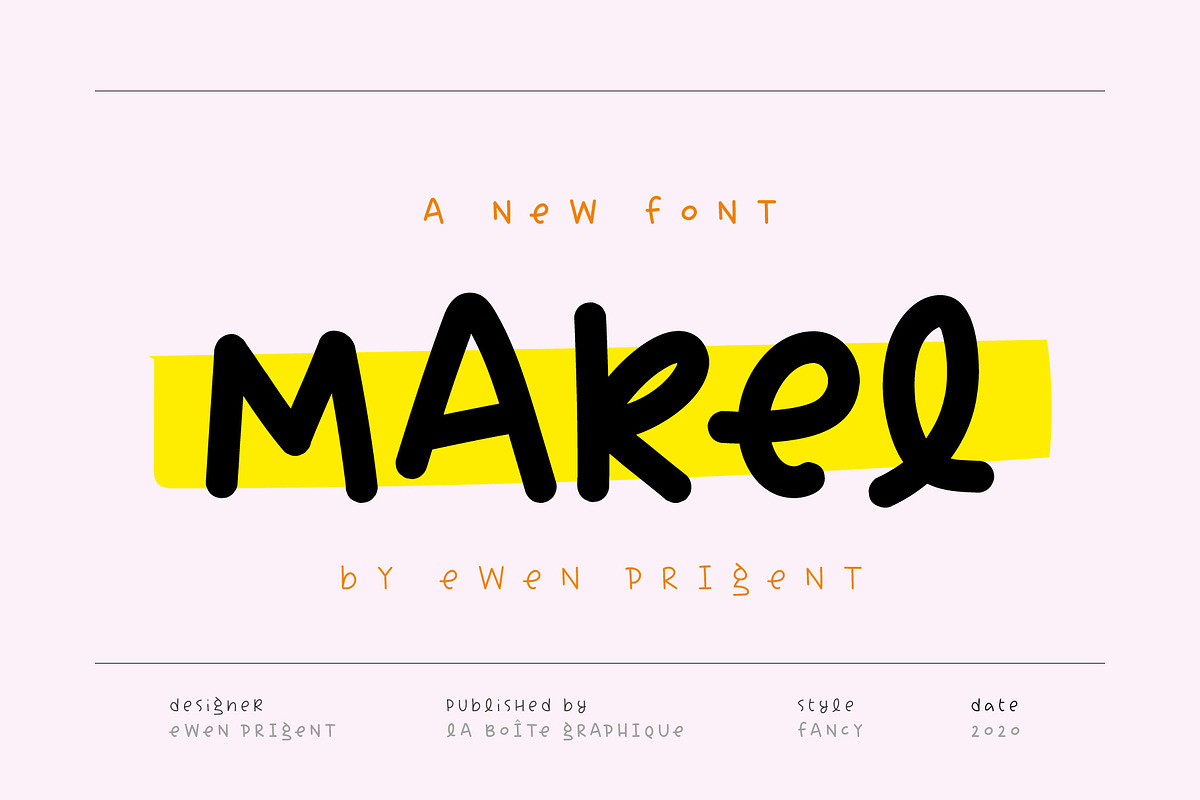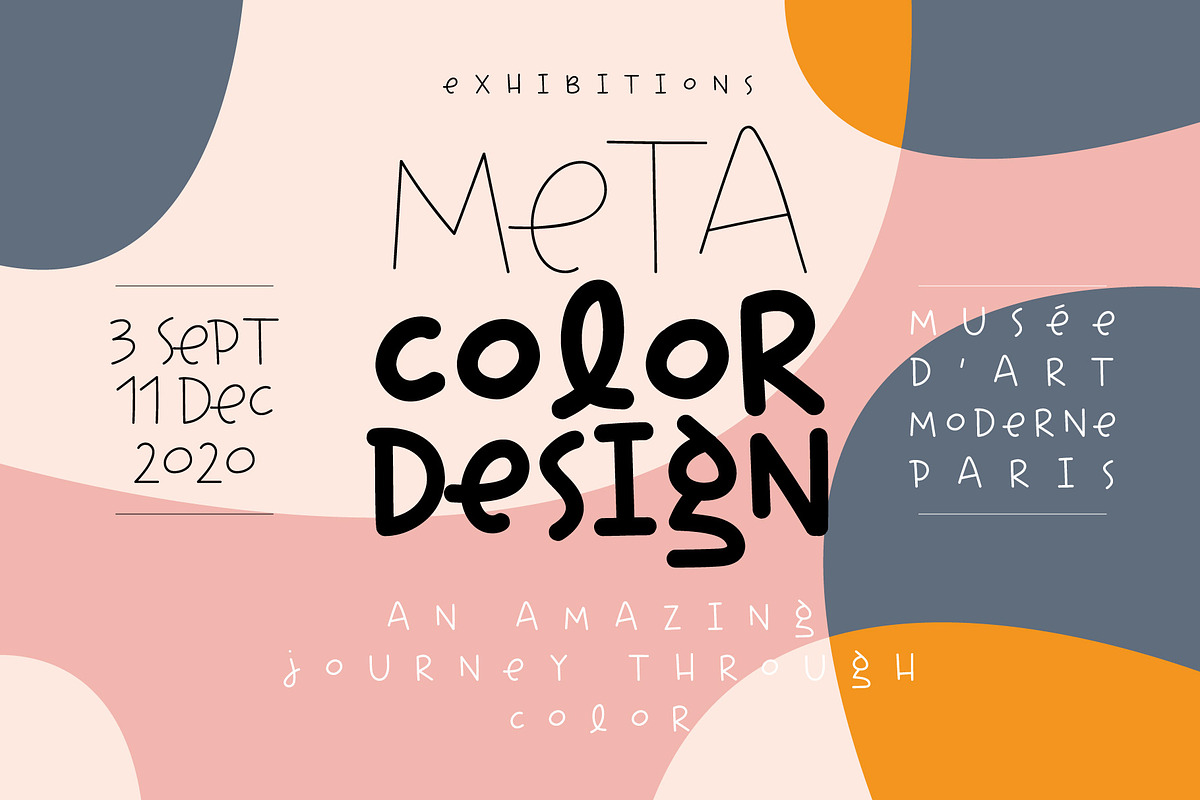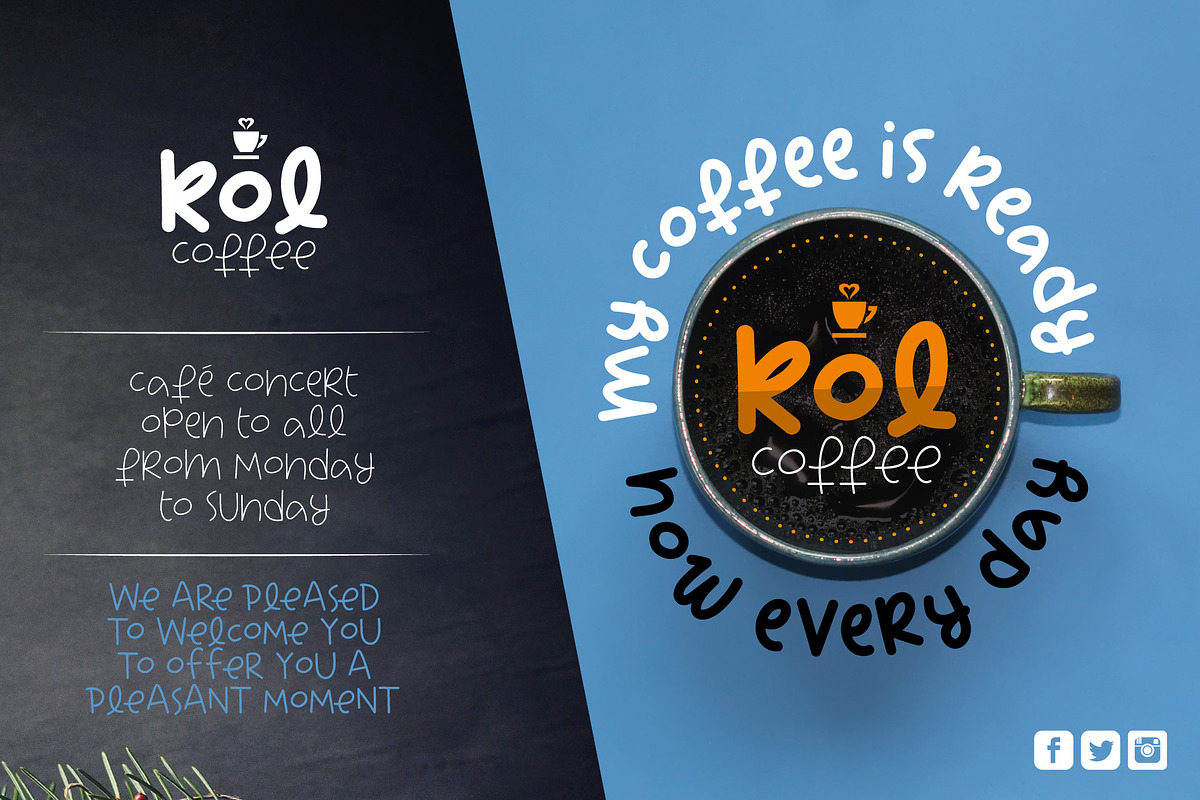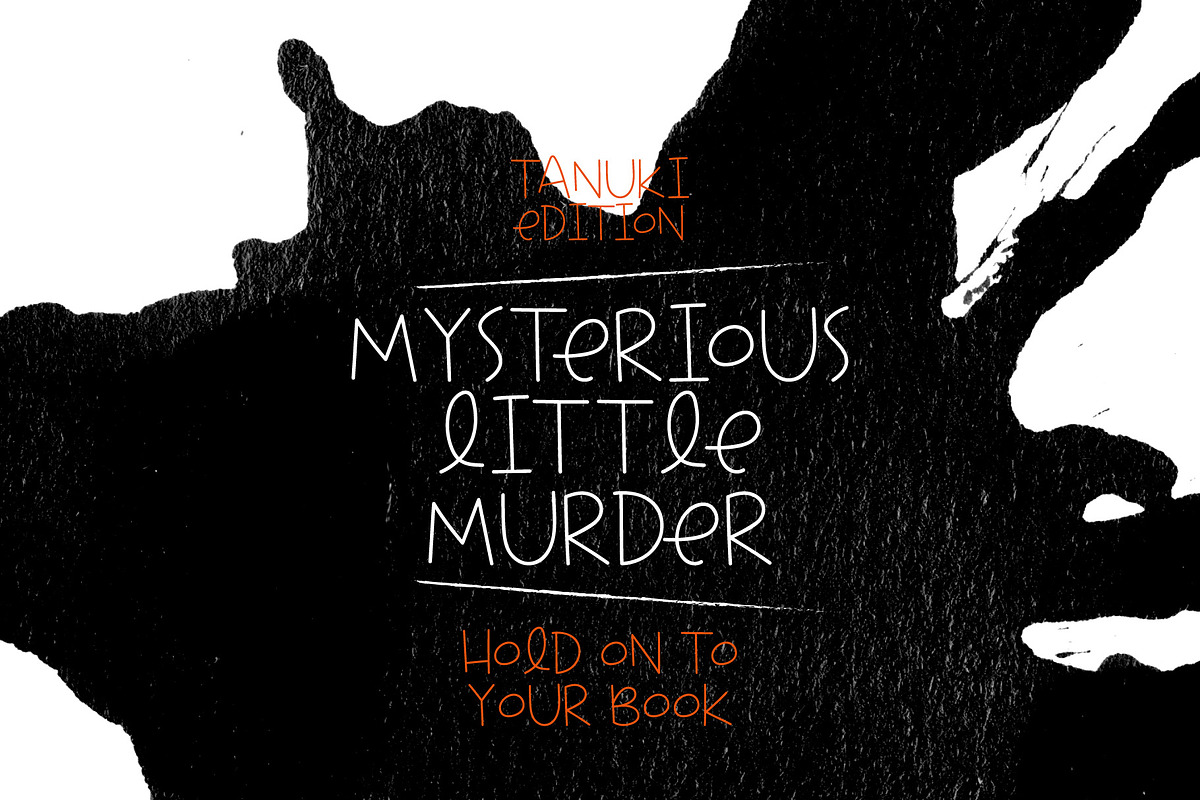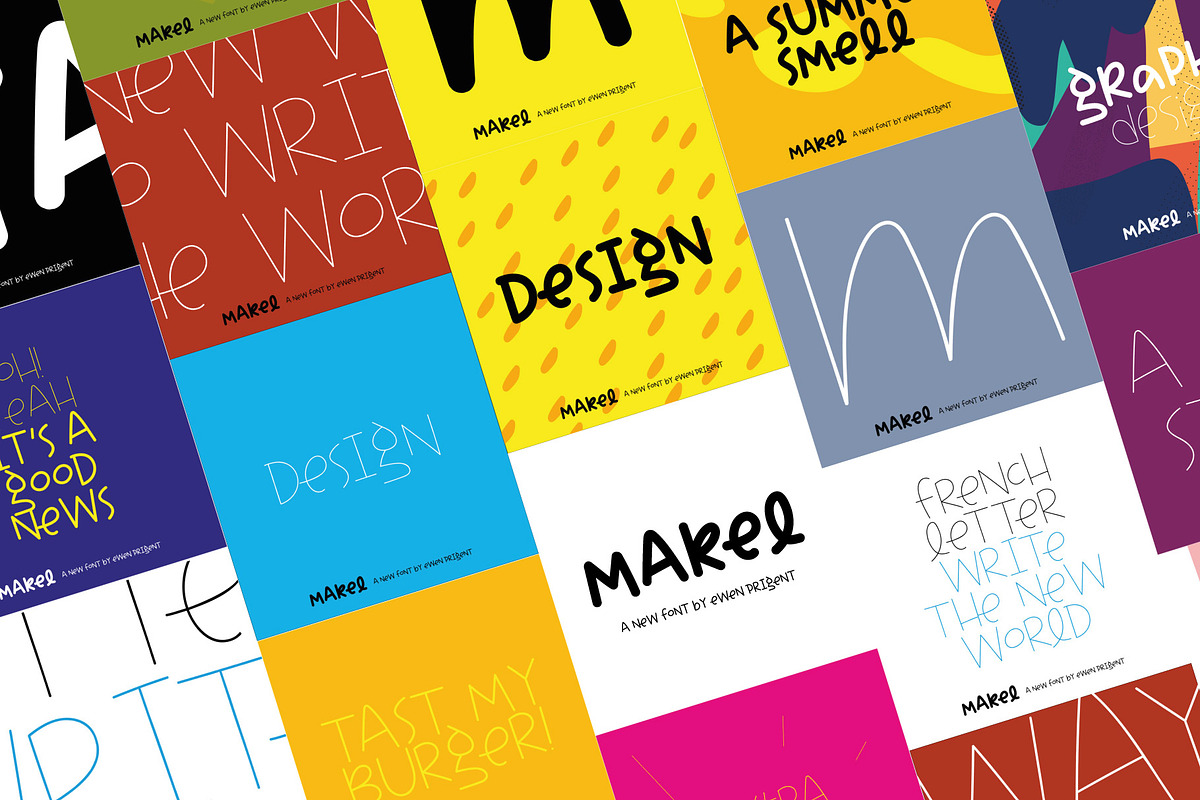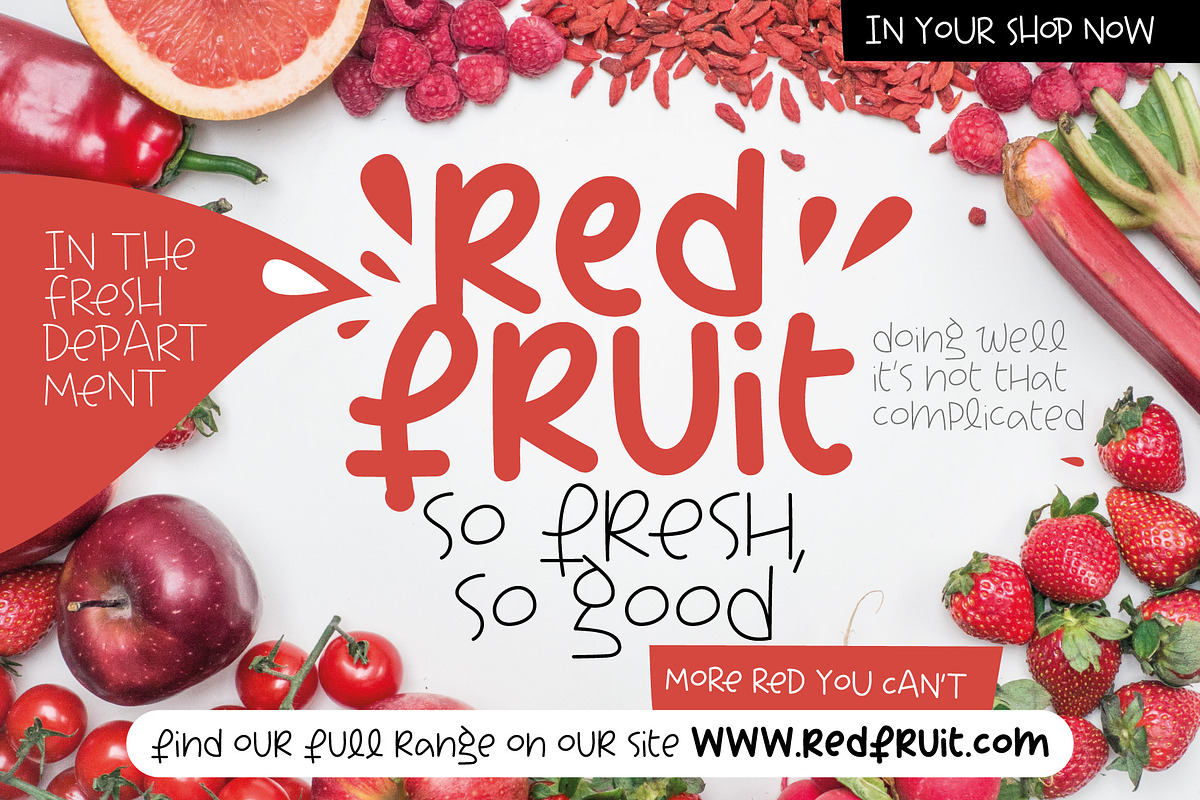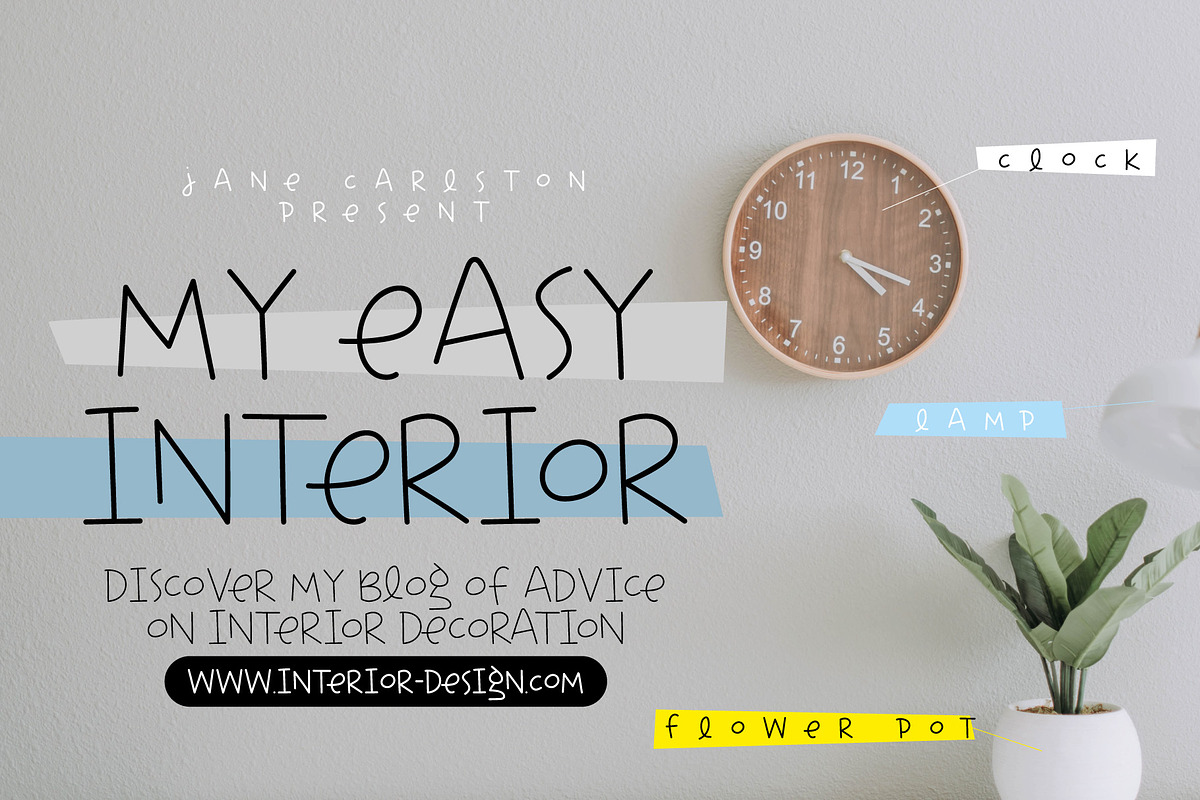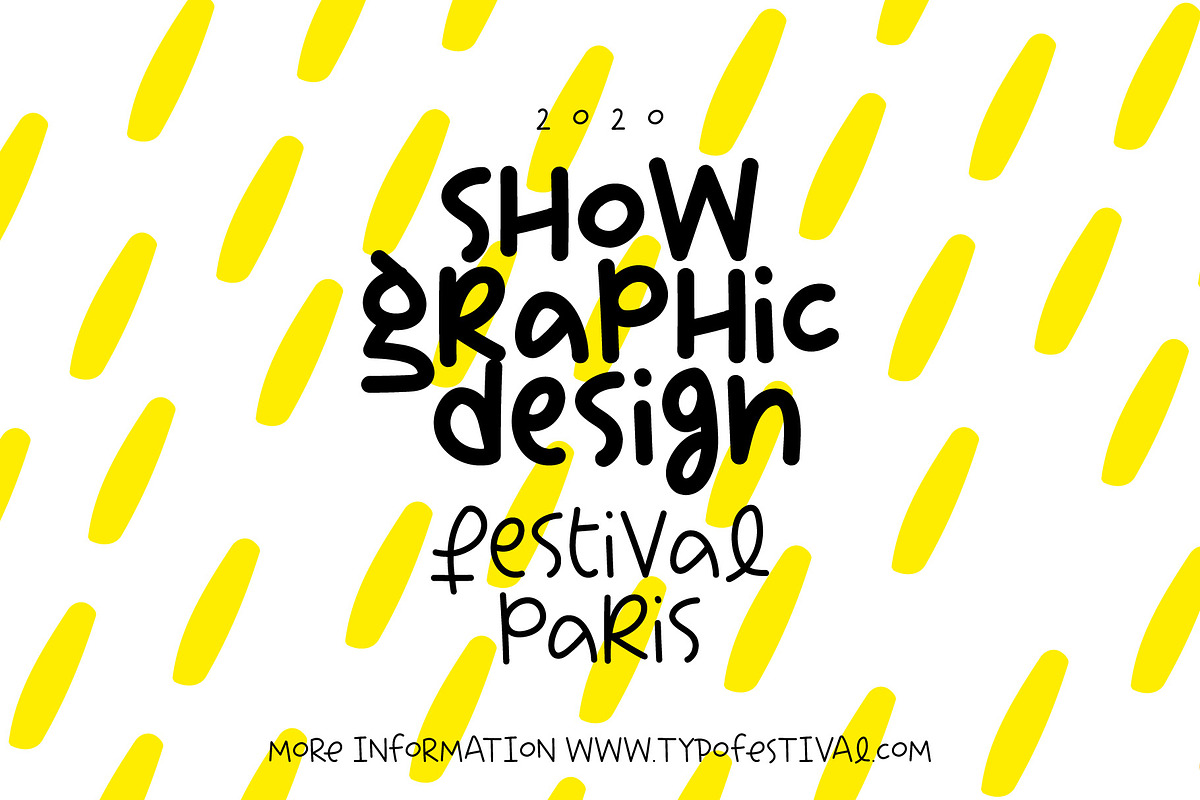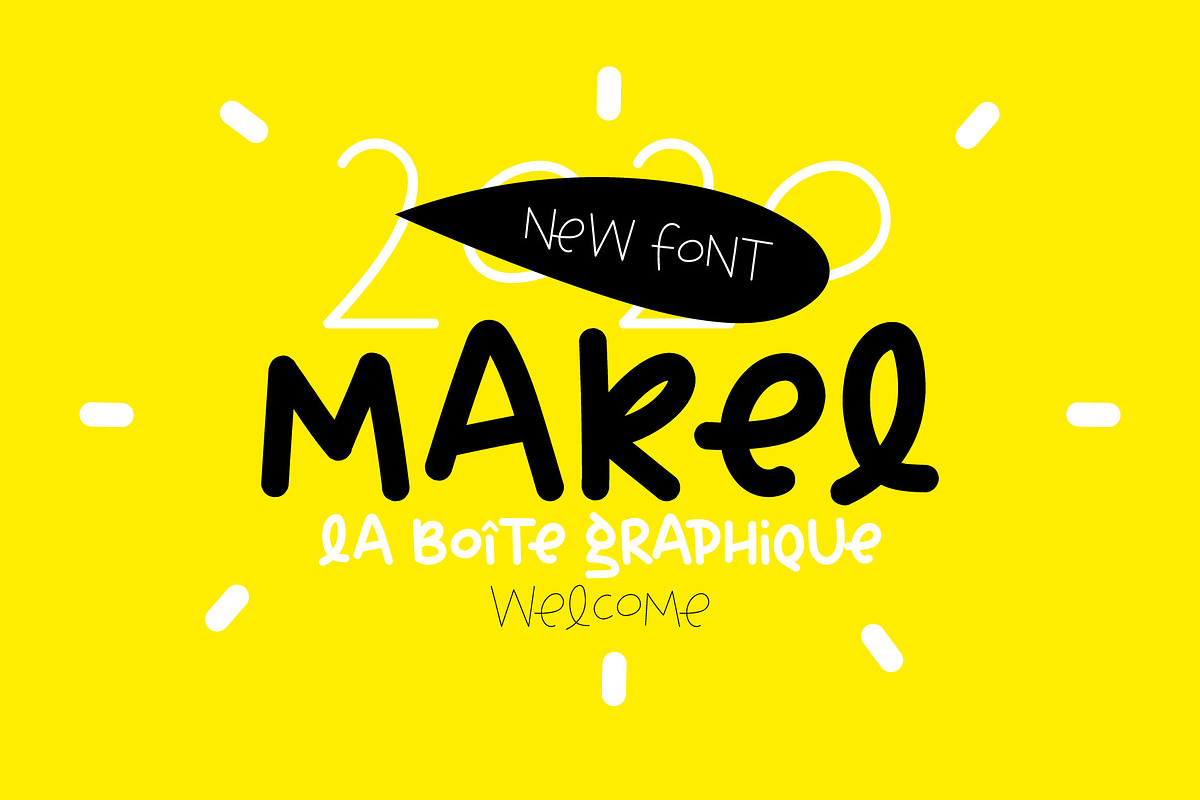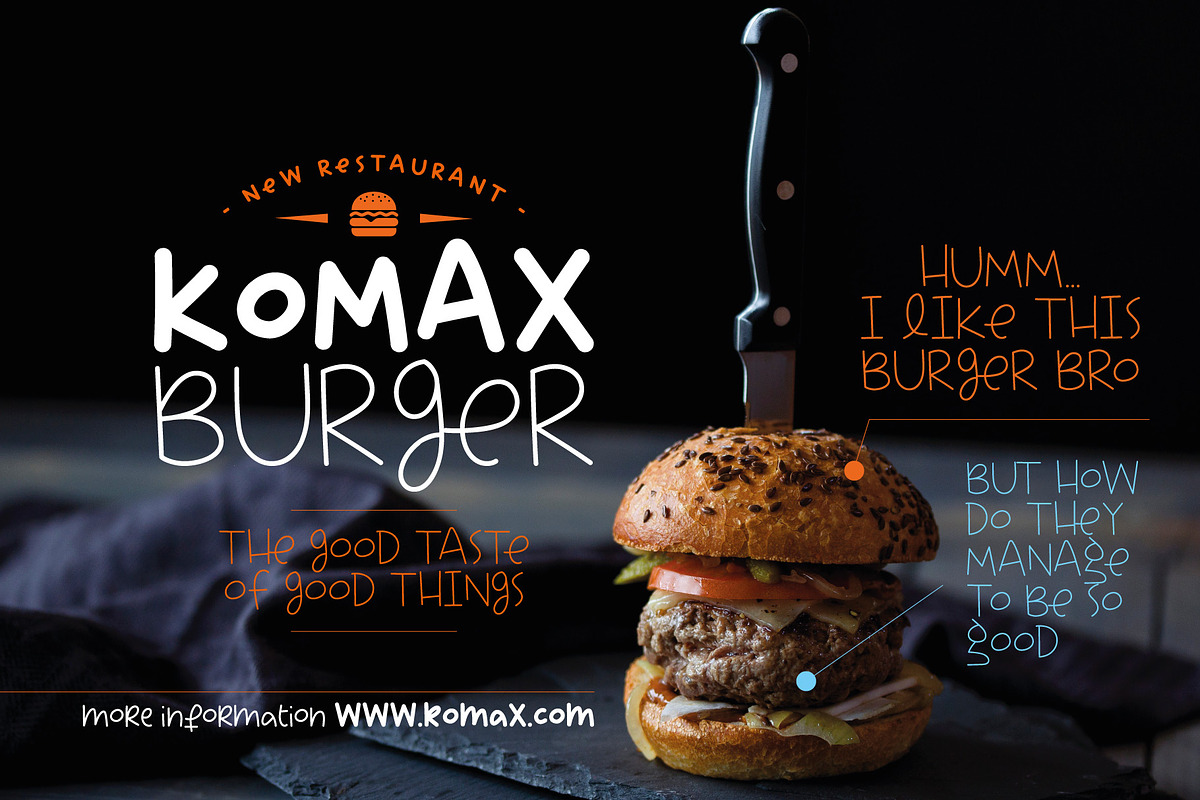
Makel, typography
Makel is a fanciful typography. Ideal for areas such as food, catering, packaging, youth publishing ... Thanks to its curves and the movement of letters, Makel wishes to bring good humor and dynamism to your communication media.
Makel est une typographie fantaisiste. Idéal pour des domaines tels que l'alimentaire, la restauration, le packaging, l'édition jeunesse… De part ses rondeurs et le mouvement des lettres, Makel souhaite apporter de la bonne humeur et du dynamisme à vos supports de communication.